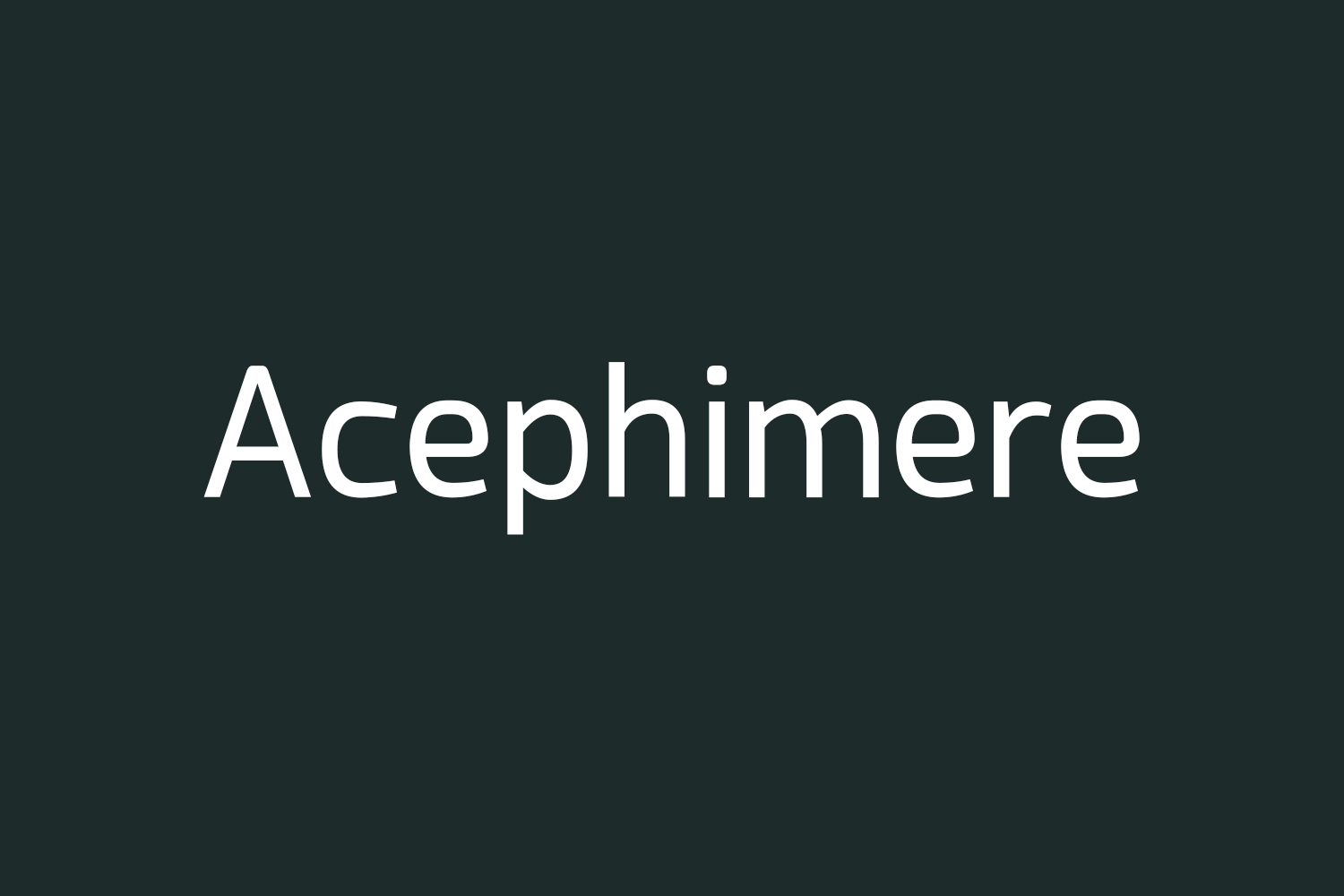
Discover the unmatched versatility of Acephimere Free Font Family, a sans-serif font designed to excel in various contexts. Whether crafting documents, designing graphics, or integrating it anywhere else, Acephimere proves its adaptability. With comprehensive language support, Acephimere ensures seamless usage across the globe. Download the font for free if you need it for personal use or purchase the full version for commercial use.